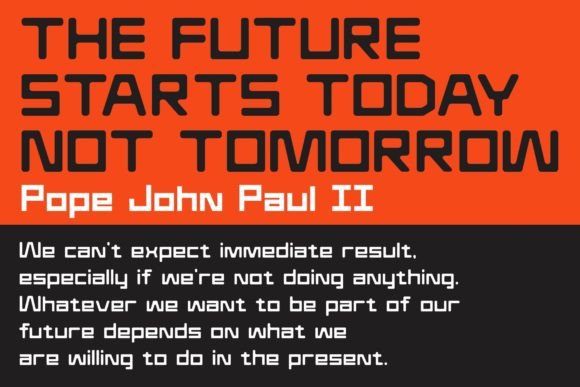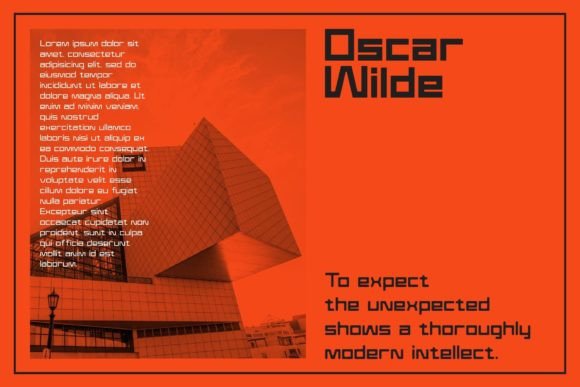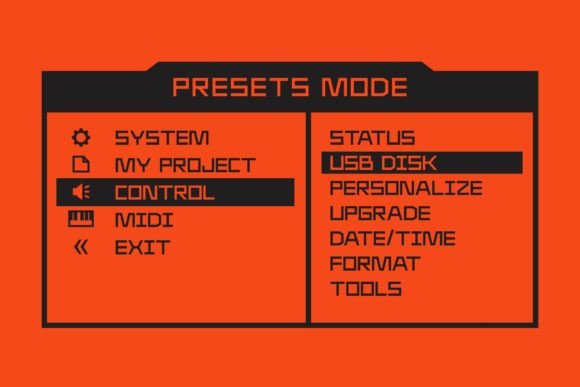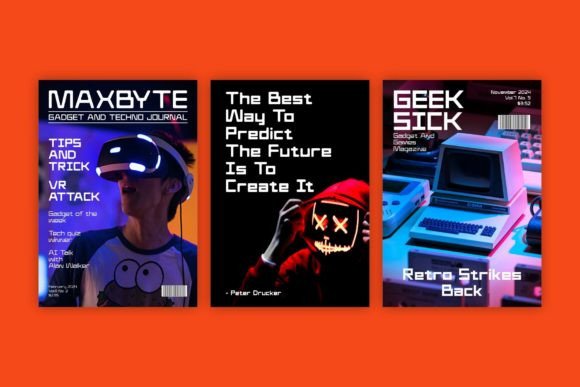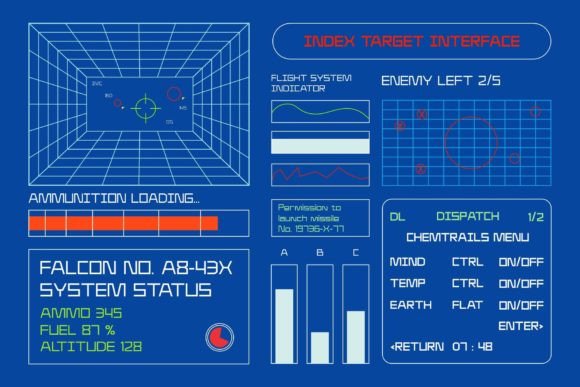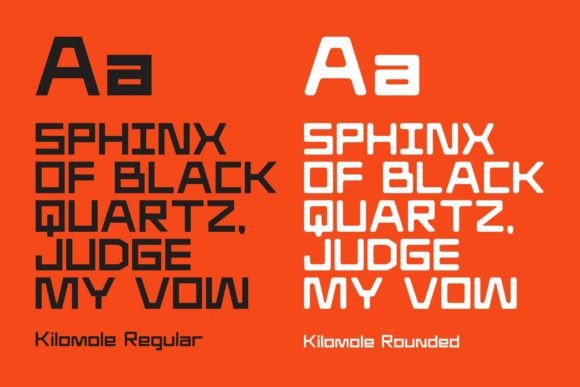
Introduction to Kilomole Font
Remember the moment when you’re working on a design project, and you’re stuck finding the perfect font to elevate your creative vision? The right typography can make all the difference, and that’s where the Kilomole Font comes in – a game-changing addition to your design resource arsenal.
As a designer, you’re always on the lookout for high-quality fonts that can transport your audience to a new world. Kilomole Font is more than just a stylish typeface; it’s a versatile design tool that offers two distinct styles – regular and rounded – allowing you to experiment with various design concepts. Whether you’re working on a futuristic project or a gritty urban design, Kilomole Font has got you covered with its sleek, streamlined look.
Key Features of Kilomole Font
- High-quality font design, ideal for creative projects requiring a unique touch
- Supports multiple languages, making it a versatile font for international creative projects
- Features a unique and modern design aesthetic, perfect for adding a touch of sophistication to any design
- Includes a comprehensive character set, ensuring that all necessary glyphs and symbols are included for a professional finish
Honest Review: Kilomole Font
I recently had the chance to work with the Kilomole Font, and I must say it’s a game-changer for any design resource. This versatile font is perfect for a wide range of creative projects, from logos to brochures and even websites.
What works well: ✨ The Kilomole Font is incredibly easy to use, even for designers with limited experience. Its high quality and modern design make it an excellent choice for any project. Plus, it’s available for free download, which is a major bonus. The transparent background also makes it easy to integrate into your design.
- High quality and modern design
- Easily customizable
Limitations: ⚠️ While the Kilomole Font is incredibly versatile, it may not be the best choice for very complex or technical projects. Additionally, some users may find the font to be a bit too minimalist for their taste.
Overall, I’m really impressed with the Kilomole Font. Its ease of use, high quality, and free download make it an excellent addition to any designer’s toolkit. Whether you’re working on a simple logo or a complex brochure, this font is definitely worth checking out.
Tips for Getting the Most Out of Kilomole Font
Use the Kilomole Font with a high-quality image or background to create a visually appealing design. Experiment with different font sizes and styles to add depth and interest to your design.
Common Use Cases for Kilomole Font
The Kilomole Font is ideal for various creative projects, including graphic design, digital art, and print materials. Use it to create eye-catching headings, titles, and body text for your design projects.